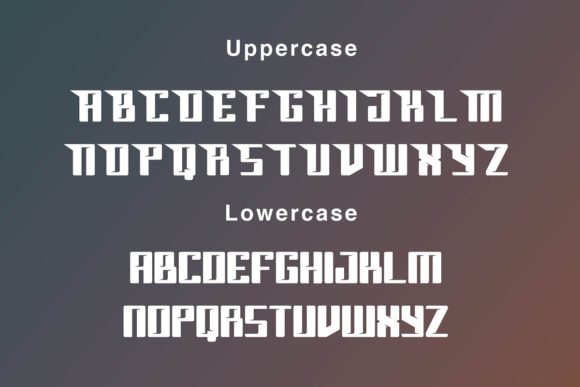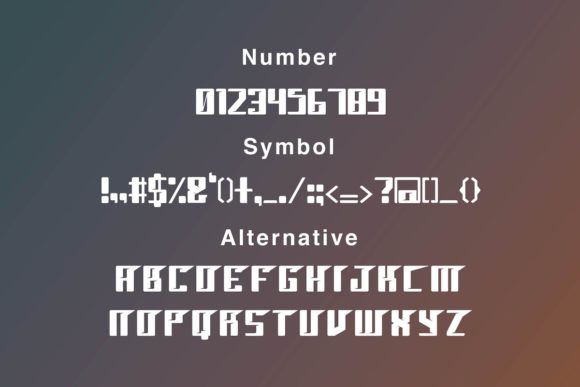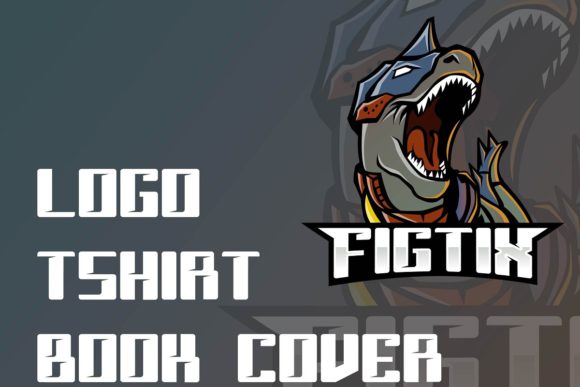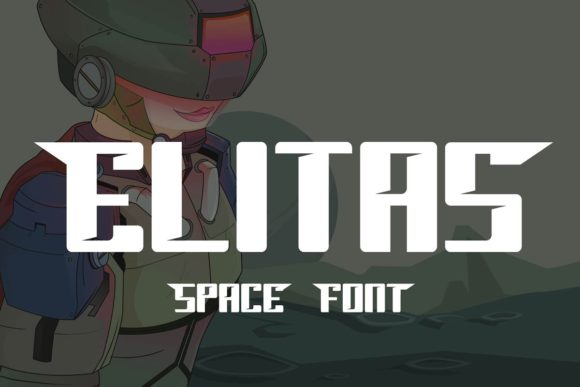
Elitas Font: A Futuristic Typeface for Extraordinary Designs
Are you tired of using the same old fonts in your design projects? Look no further than Elitas Font, a futuristic, sturdy, and moving typeface that is sure to give your designs an extraordinary impression. In this article, we’ll take a closer look at Elitas Font, its features, and how it can elevate your designs to the next level.
What is Elitas Font?
Elitas Font is a modern sans-serif font that exudes a sense of futurism and innovation. Its sleek lines, sturdy structure, and dynamic feel make it perfect for designs that require a bold and attention-grabbing typeface. Whether you’re working on a logo, brochure, or website, Elitas Font is sure to make a statement.
Key Features of Elitas Font
- Unique and Futuristic Design: Elitas Font boasts a one-of-a-kind design that is both futuristic and captivating. Its sleek lines and geometric shapes give it a modern and edgy feel that is sure to turn heads.
- Sturdy and Strong: Despite its futuristic design, Elitas Font is surprisingly sturdy and strong. It can withstand bold colors and busy backgrounds, making it perfect for designs that require a robust typeface.
- Moving Feel: Elitas Font has a dynamic feel that gives it a sense of movement and energy. This makes it perfect for designs that require a sense of action and excitement.
- Highly Versatile: Elitas Font is highly versatile and can be used in a wide range of design projects, from logos and brochures to websites and social media graphics.
How to Use Elitas Font in Your Designs
Using Elitas Font in your designs is easy and straightforward. Here are a few tips to get you started:
- Pair it with Bold Colors: Elitas Font looks great with bold and bright colors. Try pairing it with a vibrant color scheme to create a design that really pops.
- Use it for Headings: Elitas Font is perfect for headings and titles. Use it to create bold and attention-grabbing headings that draw the reader’s eye.
- Experiment with Different Sizes: Elitas Font looks great in a variety of sizes. Experiment with different sizes to find the one that works best for your design.
Benefits of Using Elitas Font
So why should you use Elitas Font in your designs? Here are just a few benefits:
- Stand Out from the Crowd: Elitas Font is a unique and attention-grabbing typeface that is sure to make your designs stand out from the crowd.
- Convey a Sense of Innovation: Elitas Font’s futuristic design makes it perfect for designs that require a sense of innovation and forward-thinking.
- Easy to Read: Despite its bold and futuristic design, Elitas Font is surprisingly easy to read. This makes it perfect for designs that require a typeface that is both stylish and legible.
In conclusion, Elitas Font is a futuristic, sturdy, and moving typeface that is sure to give your designs an extraordinary impression. With its unique design, versatility, and ease of use, Elitas Font is perfect for designers and crafters who want to create bold and attention-grabbing designs. So why not give it a try and see the difference it can make in your designs?
Whether you’re a seasoned designer or just starting out, Elitas Font is a great addition to your font library. Its ability to convey a sense of innovation and futurism makes it perfect for a wide range of design projects. So go ahead, download Elitas Font, and take your designs to the next level!